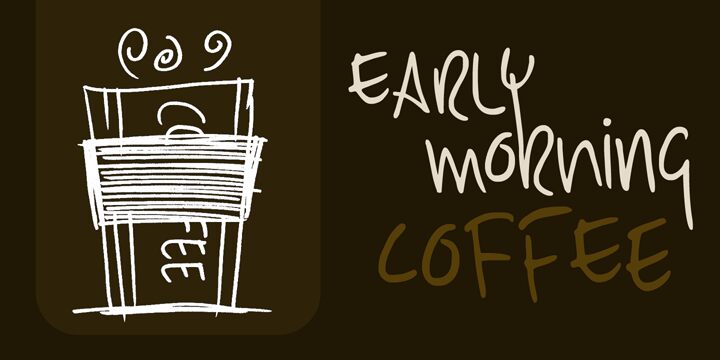
DK Early Morning Coffee Medium Roas by David Kerkhoff is a free handwritten font with tall, loosely drawn letters, shifting stroke widths, and sharply hooked turns. The uneven baseline keeps the lettering lively and personal.
Independent coffee shops and casual food brands could use it for packaging, menu boards, takeaway cups, or event posters that favor an informal hand-lettered voice. Its long strokes and varied letter shapes resemble quick marker lettering, making cafe packaging its most convincing role, especially when the words become part of the label artwork.